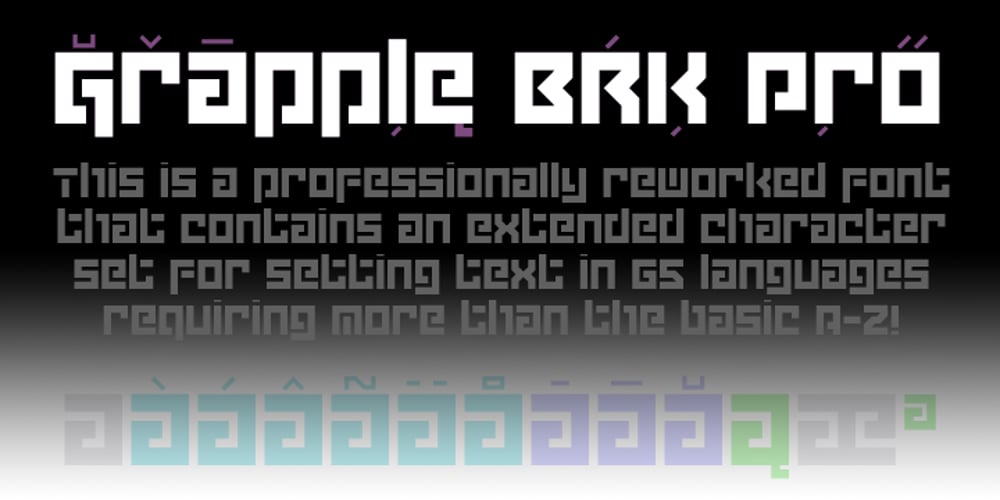
Grapple BRK Pro Font Family was designed by Roger S. Nelsson, Brian Kent and published by CheapProFonts. Grapple BRK Pro contains 1 styles and family package options. Another very squarish and futuristic font from Brian Kent. This time I’ve kept the very thin style of the diacritics, but I have redesigned the A and H (and a couple of other letters and glyphs ๐ – mostly to give them a little more “meat”. And then added the usual plethora of accented letters for our unique language support, of course. Result! ALL fonts from CheapProFonts have very extensive language support: They contain some unusual diacritic letters (some of which are contained in the Latin Extended-B Unicode block) supporting: Cornish, Filipino (Tagalog), Guarani, Luxembourgian, Malagasy, Romanian, Ulithian and Welsh. They also contain all glyphs in the Latin Extended-A Unicode block (which among others cover the Central European and Baltic areas) supporting: Afrikaans, Belarusian (Lacinka), Bosnian, Catalan, Chichewa, Croatian, Czech, Dutch, Esperanto, Greenlandic, Hungarian, Kashubian, Kurdish (Kurmanji), Latvian, Lithuanian, Maltese, Maori, Polish, Saami (Inari), Saami (North), Serbian (latin), Slovak(ian), Slovene, Sorbian (Lower), Sorbian (Upper), Turkish and Turkmen. And they of course contain all the usual “western” glyphs supporting: Albanian, Basque, Breton, Chamorro, Danish, Estonian, Faroese, Finnish, French, Frisian, Galican, German, Icelandic, Indonesian, Irish (Gaelic), Italian, Northern Sotho, Norwegian, Occitan, Portuguese, Rhaeto-Romance, Sami (Lule), Sami (South), Scots (Gaelic), Spanish, Swedish, Tswana, Walloon and Yapese.